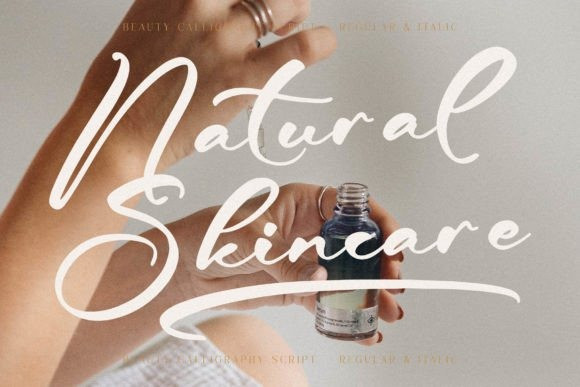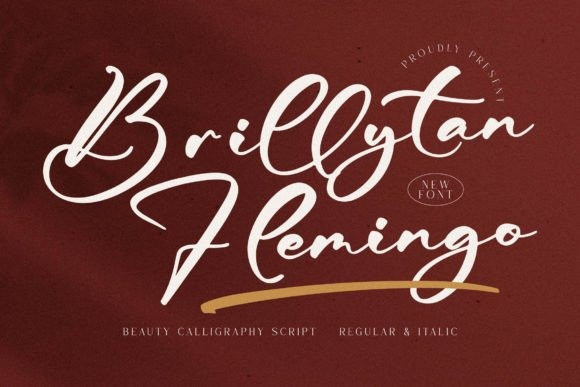
Brillytan Flemingo Font
Brillytan Flemingo Font – Beauty Calligraphy Script , from Glorytype Studio, suitable for any projects such as: logos, branding projects, homeware designs, product packaging, mugs, quotes, posters, shopping bags, t-shirts, book covers, name card, invitation cards, greeting cards, label, photography, watermark, special events, and all your other lovely projects that need a beautiful script taste.